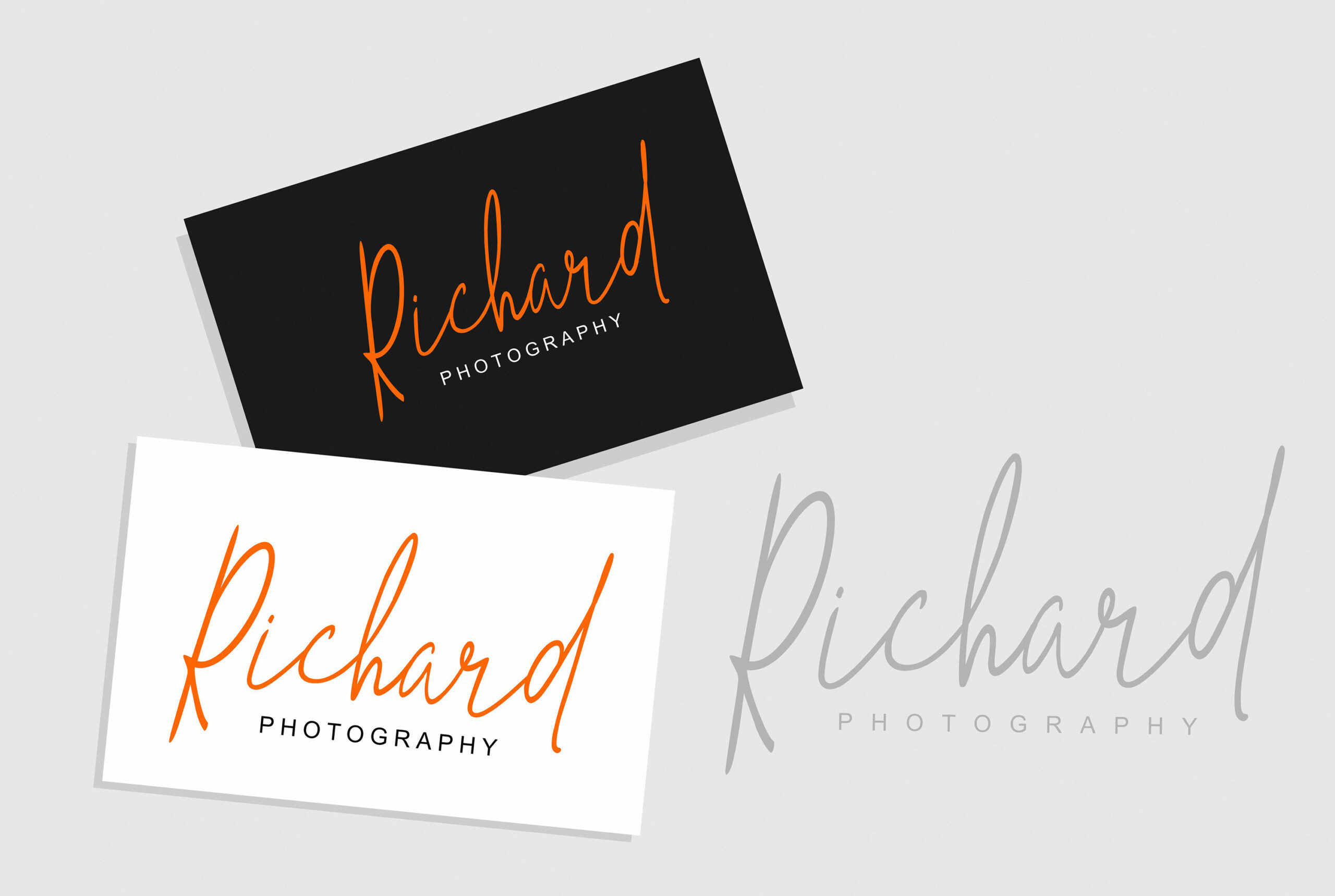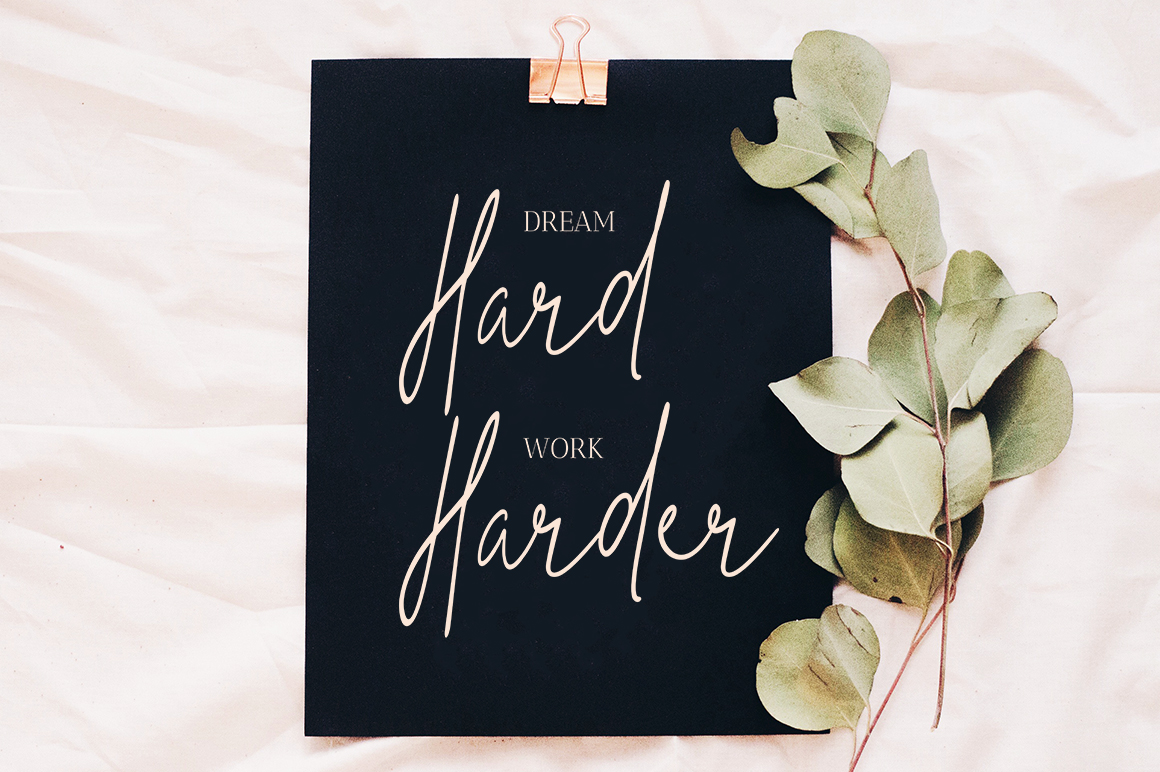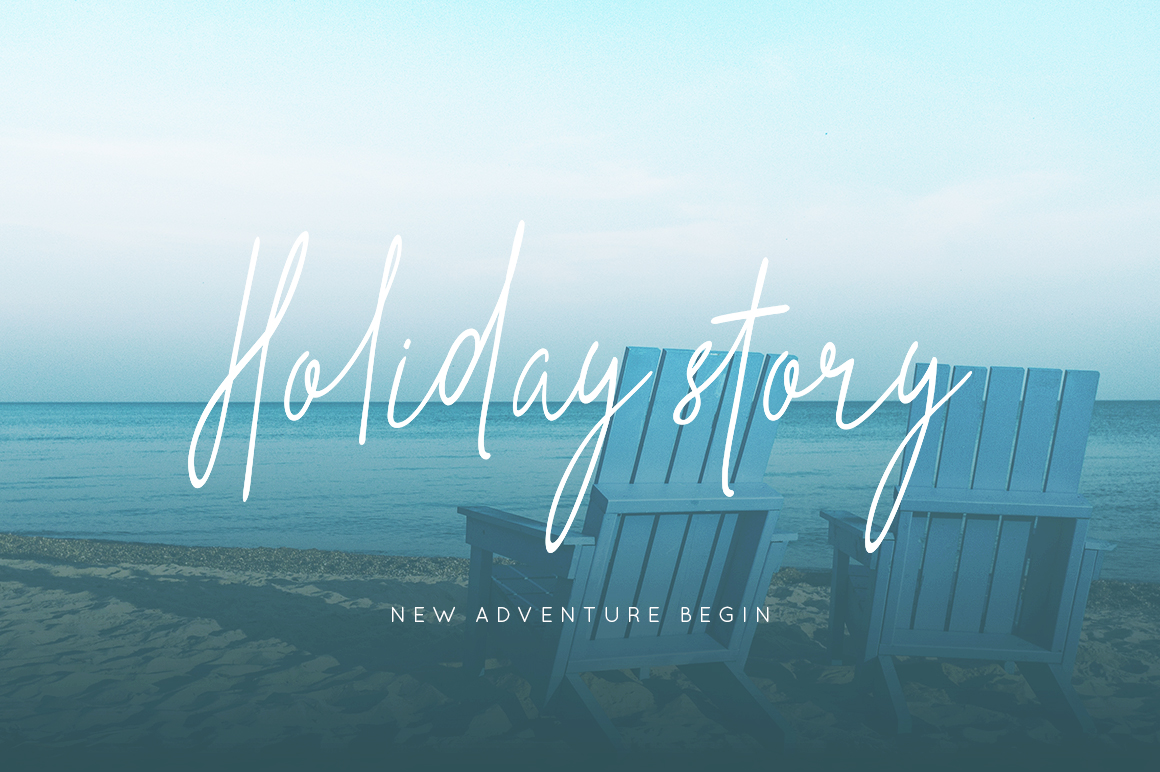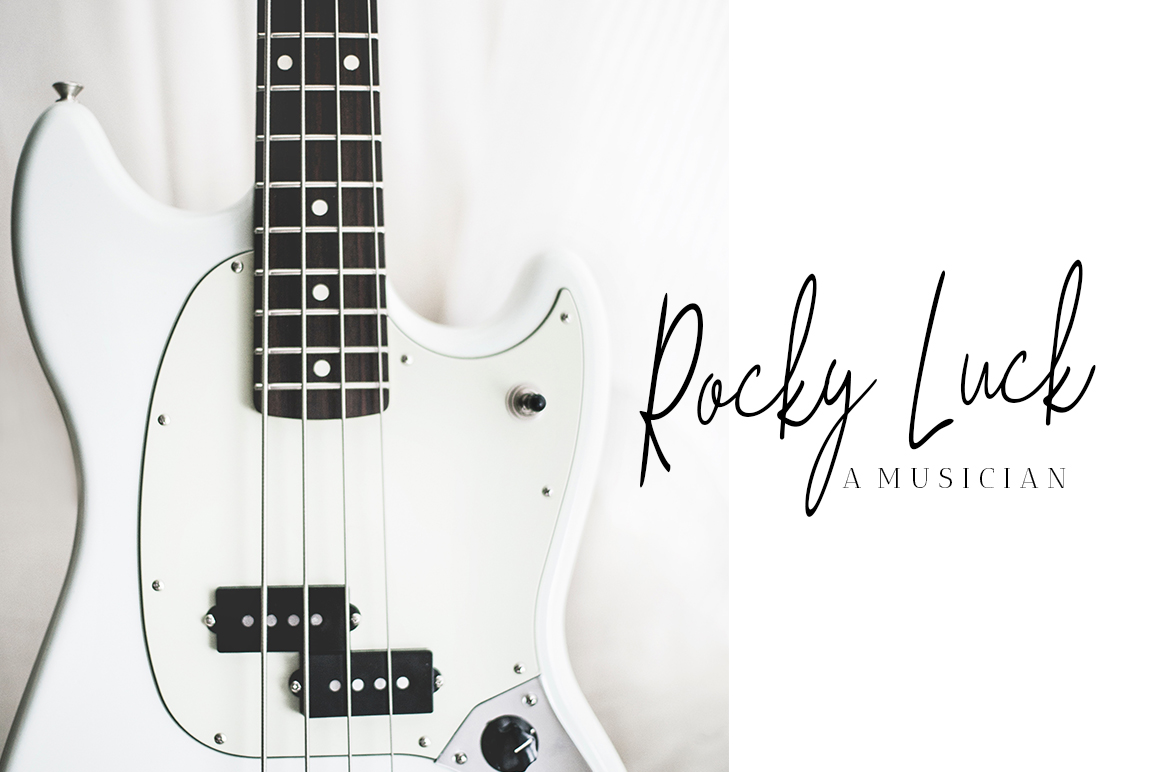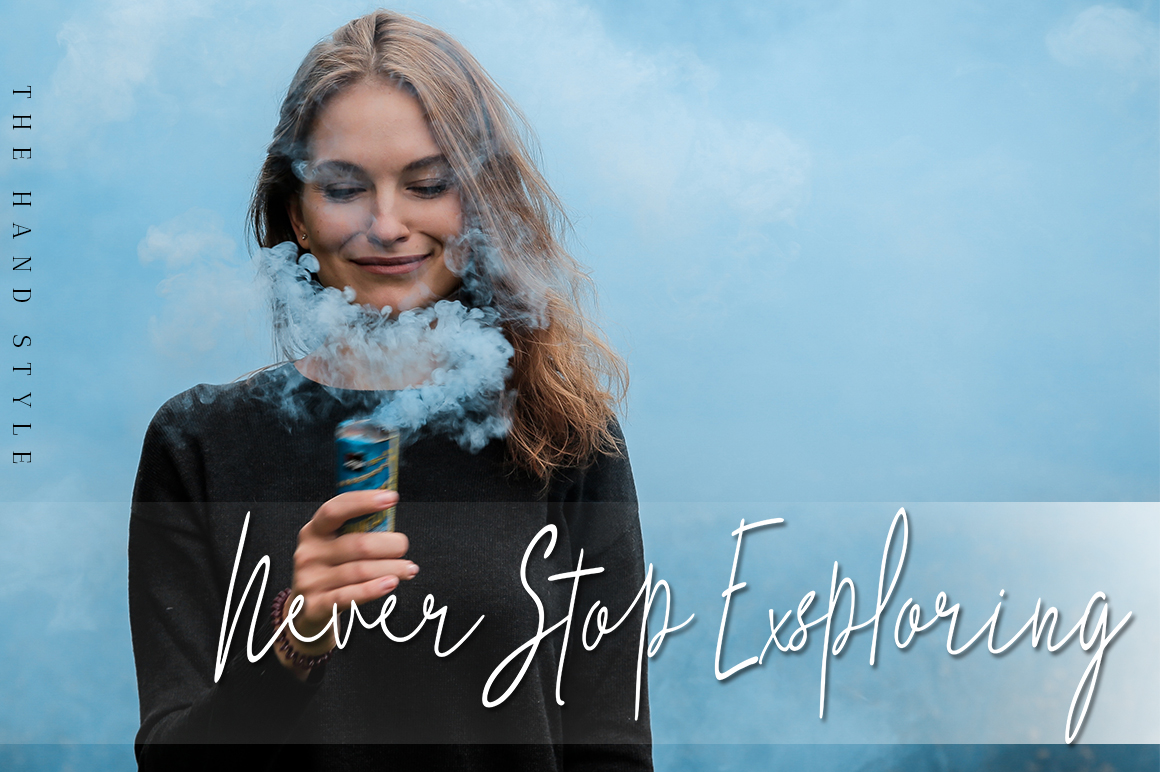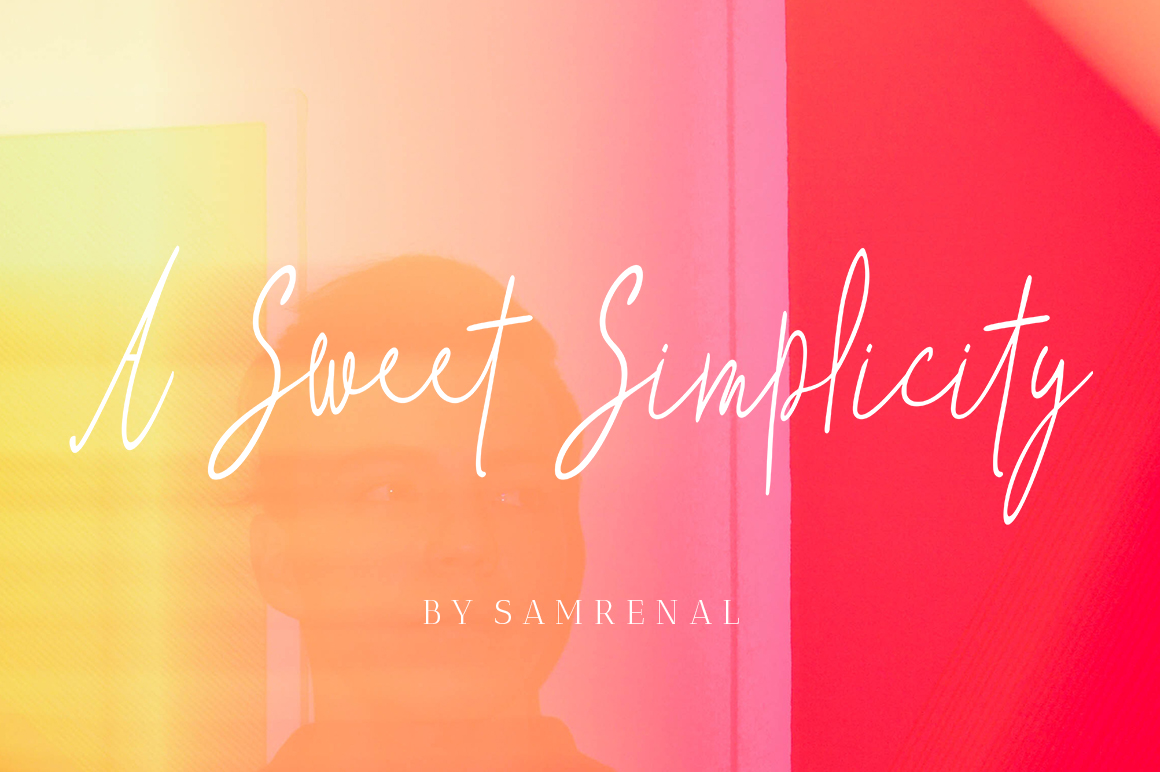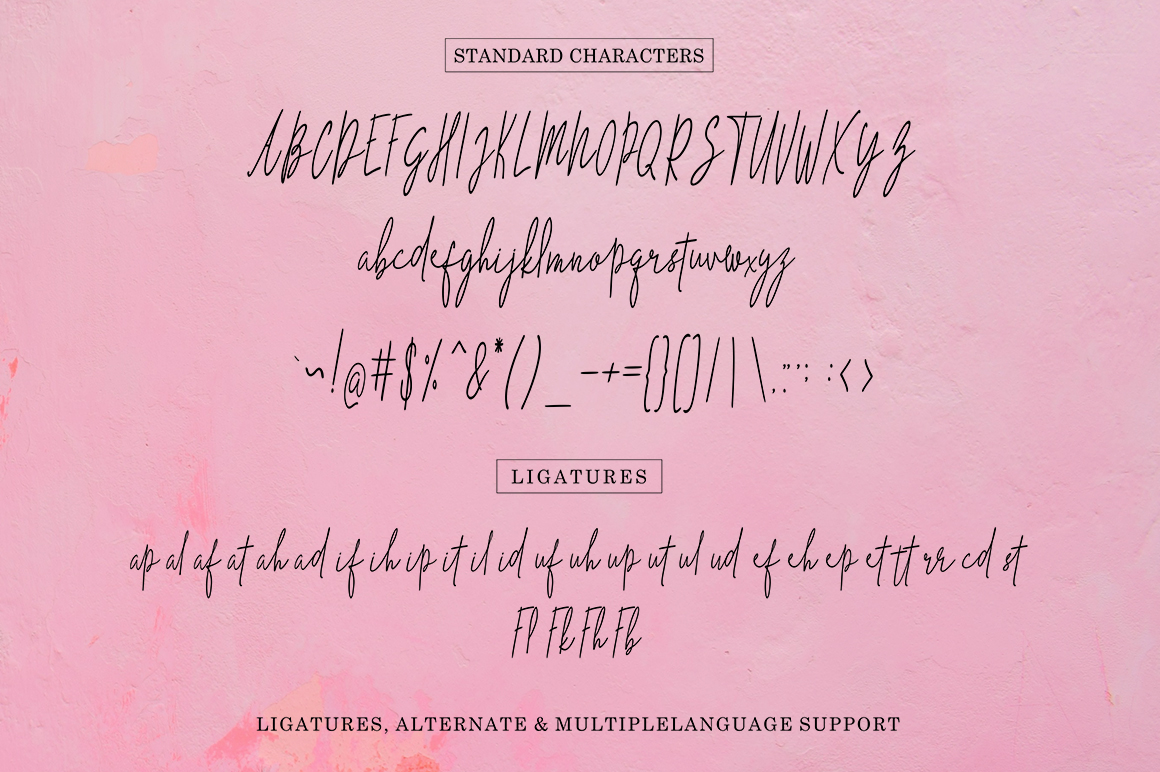
The Hand Style Font
About The Hand Style Font
This gorgeous script font is casual and thin, making it suitable for sleek and modern designs. Use The Hand Style to give a kick to your signature styles and branding projects.